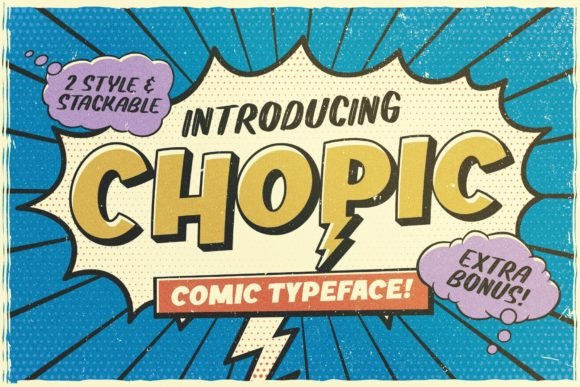
Embrace the Unconventional: Unleash Your Creativity with Chopic Font
In a world saturated with homogeneity, dare to stand out with the captivating Chopic Font. A whimsical and vibrant display font, Chopic is your ticket to injecting personality and charm into your design endeavors. Its playful nature and bold strokes ignite a sense of joy and lightheartedness, transforming ordinary projects into captivating masterpieces.
Fuel Your Imagination: Discover a World of Possibilities
With Chopic Font, the possibilities are as limitless as your creativity. Dive into a realm where boundless imagination reigns supreme. Express your individuality through logos that pop off the page, captivating posters that demand attention, and eye-catching social media graphics that leave a lasting impression. Chopic Font is your secret weapon to captivate audiences and leave them yearning for more.
A Typographic Symphony: Experience the Harmony of Design
Chopic Font is a symphony of visual delight, a conductor of harmony in the realm of typography. Its meticulously crafted characters dance together in perfect unison, creating a visual rhythm that flows effortlessly across your designs. Each letter is a work of art, meticulously shaped to complement its neighbors, resulting in a captivating visual feast that commands attention.
Effortless Charm: Simplicity Meets Sophistication
Unleash the power of simplicity with Chopic Font. Its user-friendly design and intuitive interface make it a joy to use, even for beginners. Experience the seamless integration of Chopic Font into your creative workflow, allowing your ideas to flow freely without the hindrance of technical complexities. With Chopic Font, simplicity and sophistication go hand in hand, empowering you to create stunning designs with effortless grace.